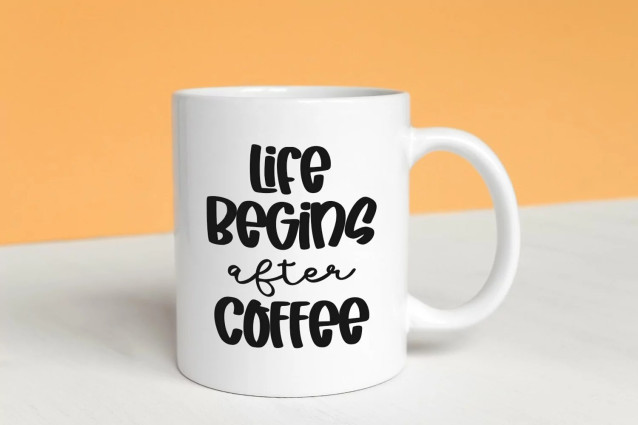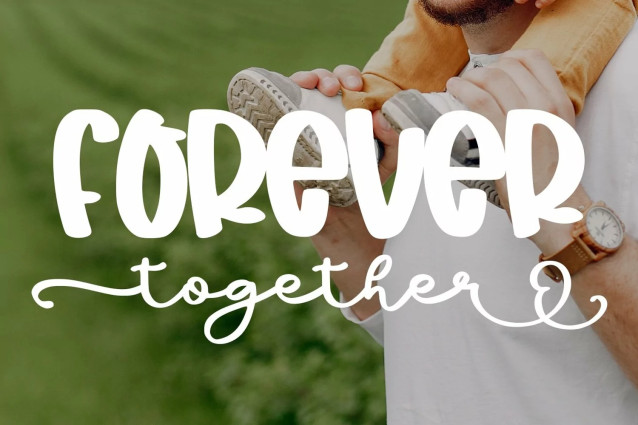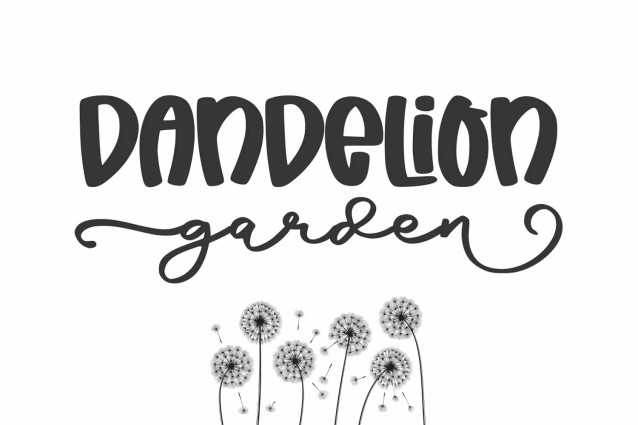
Dandelion Garden Font Duo
Dandelion Garden Font Duo is a playful couple font that great for lettering, quotes, logo, t-shirt designs, mugs, tote bag designs, cards, banners, social media, and anything about craft projects.